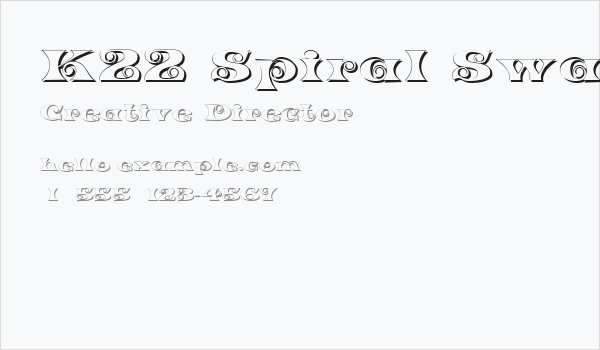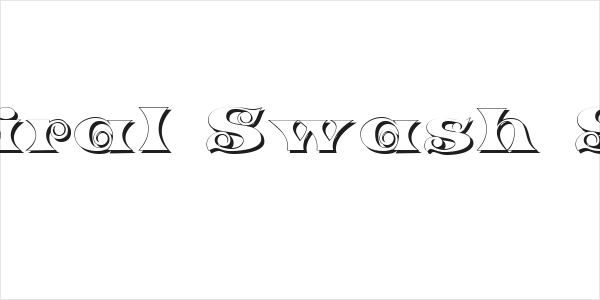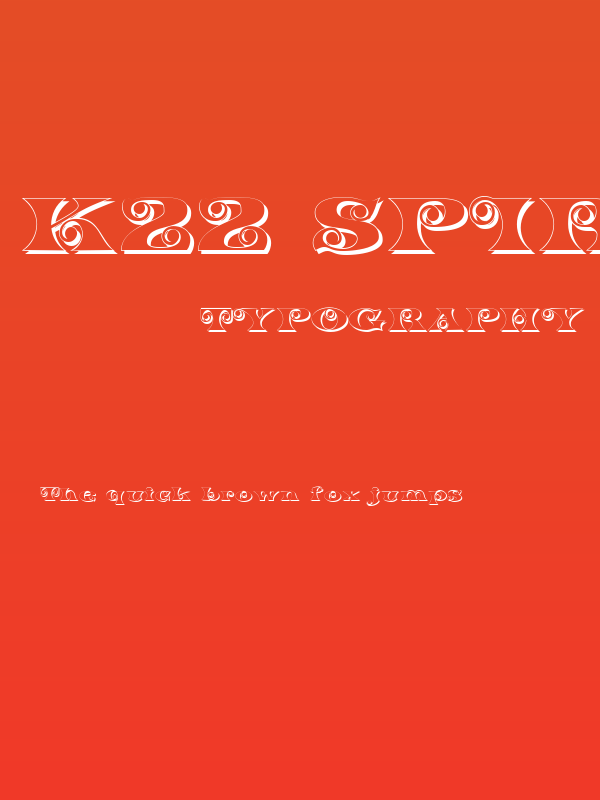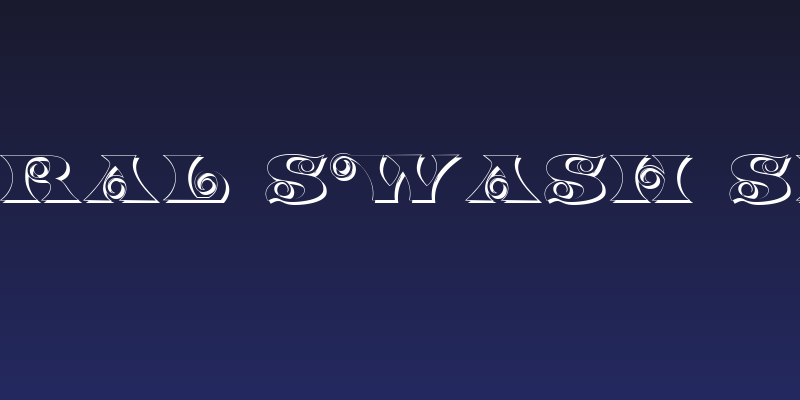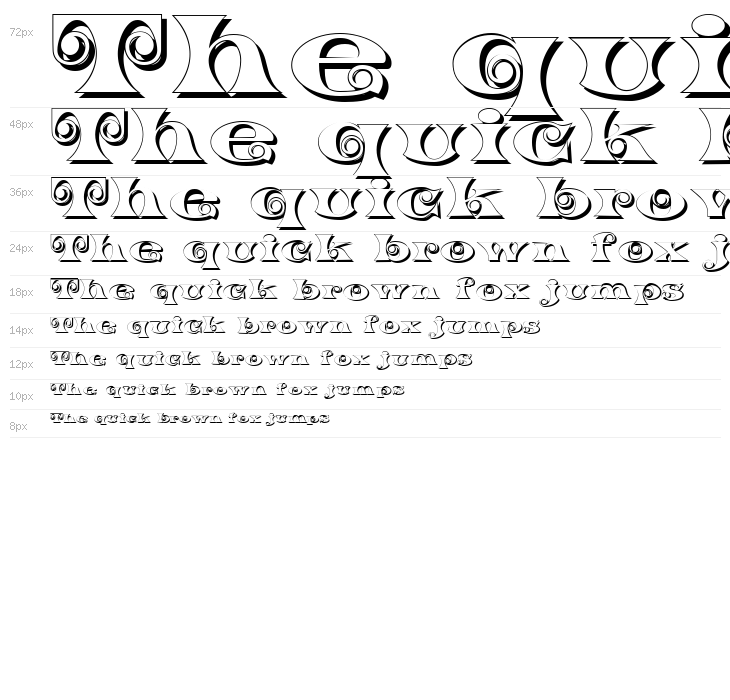
K22 Spiral Swash Shadow Font
K22 Spiral Swash Shadow Description
This font features a unique and decorative style with intricate swirls and shadows that give it a three-dimensional appearance. The uppercase and lowercase letters are adorned with elegant spiral embellishments, creating a sense of movement and flair. The numbers and special characters maintain this ornate design, making the font suitable for eye-catching displays. The bold strokes and shadow effects enhance its visual impact, making it stand out in any design. The overall aesthetic is both playful and sophisticated, ideal for projects that require a touch of creativity and elegance.
| Proposed Projects | Ideal for invitations, posters, branding, and any project that requires a decorative and eye-catching font. |